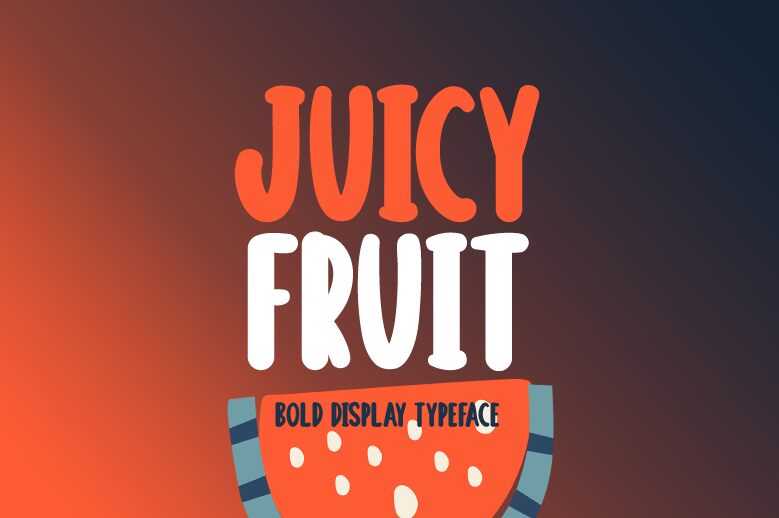
Meet Juicy Fruit, the playful and vibrant font designed by Md Shohail Bhuian. With its bold and extra-condensed style, this display font is perfect for catching attention in any project that requires a fun and cartoonish touch. Use it for children's books, logos, packaging design or even social media posts - the possibilities are endless. Juicy Fruit's unique personality will make your message stand out from the crowd and leave a lasting impression on your audience. Get ready to add some juicy flavor to your designs with this delightful font!
Juicy Fruit